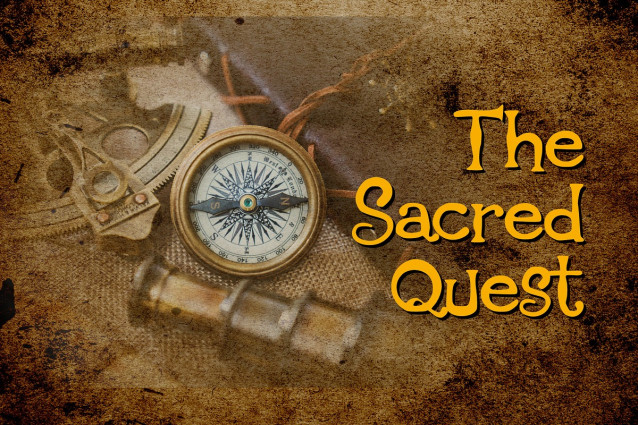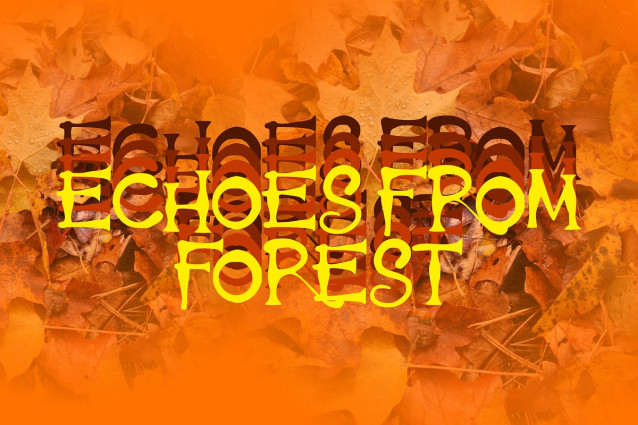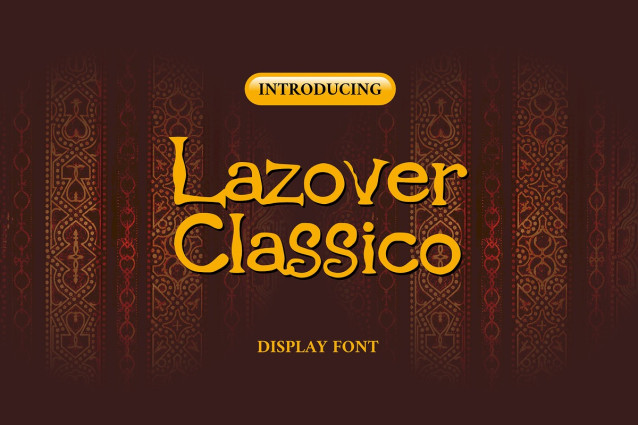
Lazover Classico Decorative Typeface Font
Lazover Classico
This font features a mystical and ornamental fantasy style inspired by medieval calligraphy and ancient folklore aesthetics. The characters are designed with elegant curves, sharp decorative edges, and artistic flourishes that create a magical and dramatic appearance. Its warm golden tone combined with intricate details makes it ideal for fantasy-themed designs, movie titles, game interfaces, book covers, posters, branding, and cultural artwork. The font delivers a strong vintage atmosphere while maintaining readability, giving every design a luxurious and enchanted visual identity.
Combining classic serif aesthetics with a modern, clean sensibility, this font is meticulously crafted to bring a touch of luxury and timeless refinement to your creative projects. Featuring well-balanced proportions and distinctive letterforms, Lazover Classico is highly versatile and perfect for high-end branding, editorial design, luxury packaging, logos, wedding invitations, and stylish typography layouts. Whether you are aiming for a minimalist modern look or a traditional vintage charm, this typeface provides the premium quality needed to make your headlines and visual identity truly stand out.